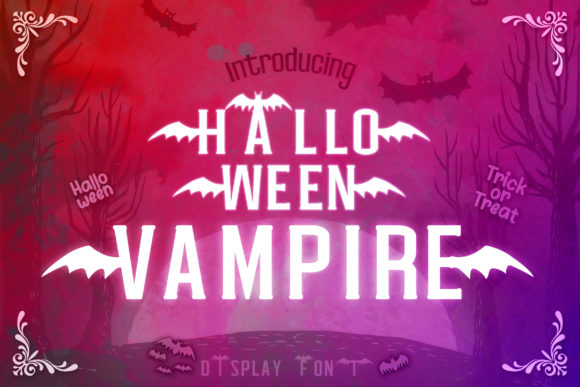
Prepare yourself for a spine-tingling and enchanting typographical journey with Halloween Vampire Font, the undisputed champion of eerie elegance and haunting charm! This captivating display font, meticulously crafted by the visionary minds at numnim, embodies the very essence of the spooky season.
Halloween Vampire Font ascends beyond the realm of ordinary fonts, emerging as a mesmerizing masterpiece that will cast a spell on your designs. Its bold and towering letters command attention, evoking the spine-chilling atmosphere of a classic horror movie trailer. Each meticulously shaped character exudes an otherworldly allure, beckoning you to embrace the supernatural and conjure up spine-tingling creations.
Indulge in the limitless creative possibilities that await you with Halloween Vampire Font. Its hauntingly versatile nature empowers you to conjure up a symphony of spine-chilling designs that will send shivers down your audience's spines. Unleash your imagination and let the font's captivating aura guide you towards crafting spellbinding posters, bone-rattling invitations, and petrifying social media graphics that will leave an indelible mark on all who behold them.
Halloween Vampire Font stands as an indispensable tool for graphic designers, artists, and anyone seeking to evoke a sense of otherworldly wonder and spine-tingling excitement. Its chillingly beautiful appearance will undoubtedly cast a hypnotic spell over your audience, leaving them breathless and craving for more.
Don't resist the allure of the supernatural. Embrace the power of Halloween Vampire Font today and embark on a creative odyssey that will send chills down the spines of your audience. Let its haunting charm ignite your imagination and guide you towards creating designs that will forever be etched in the annals of typographical excellence.